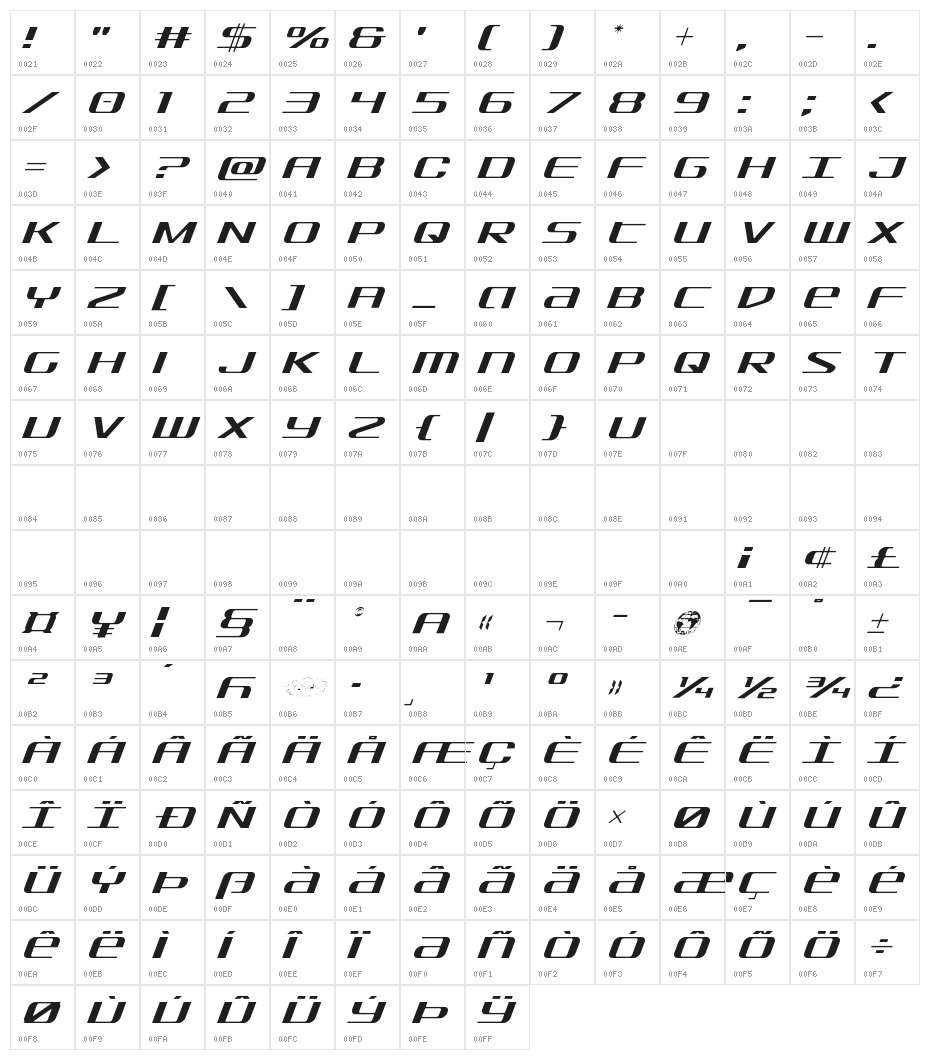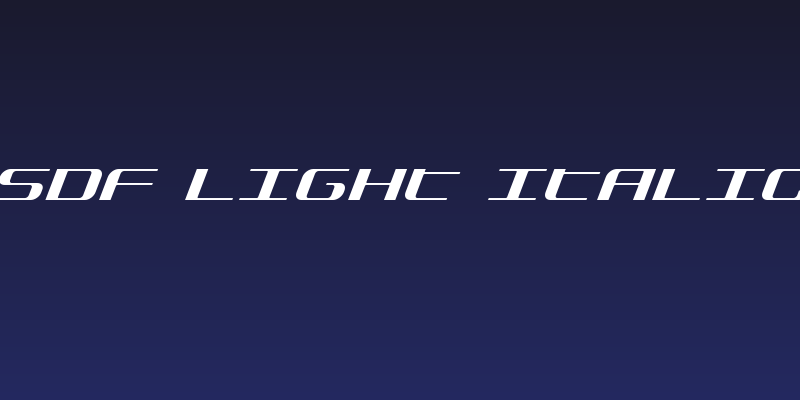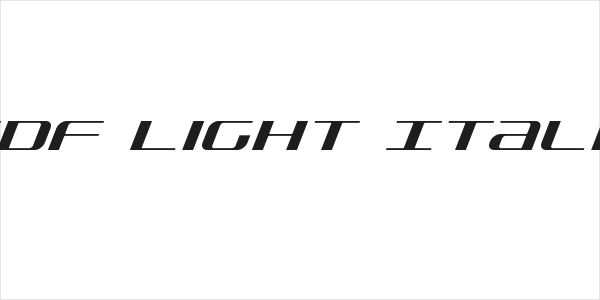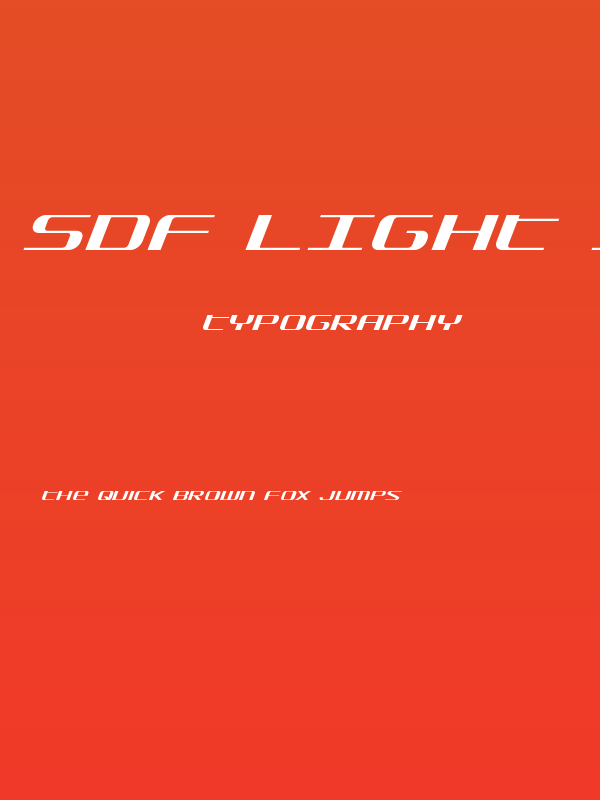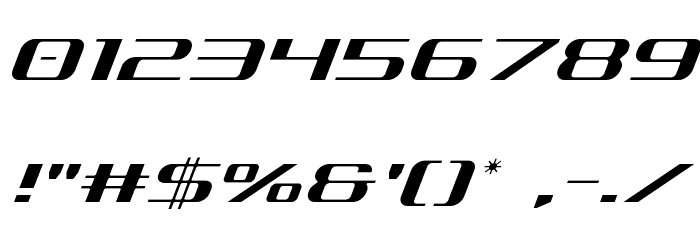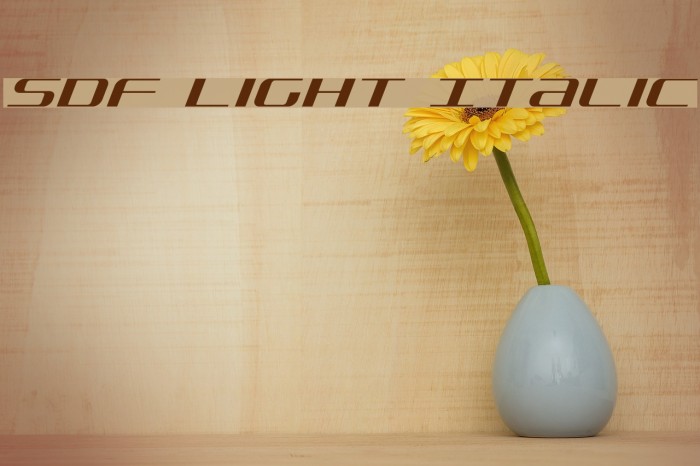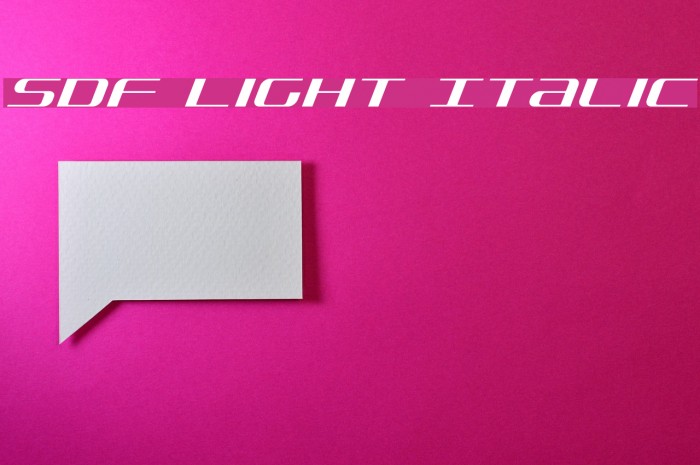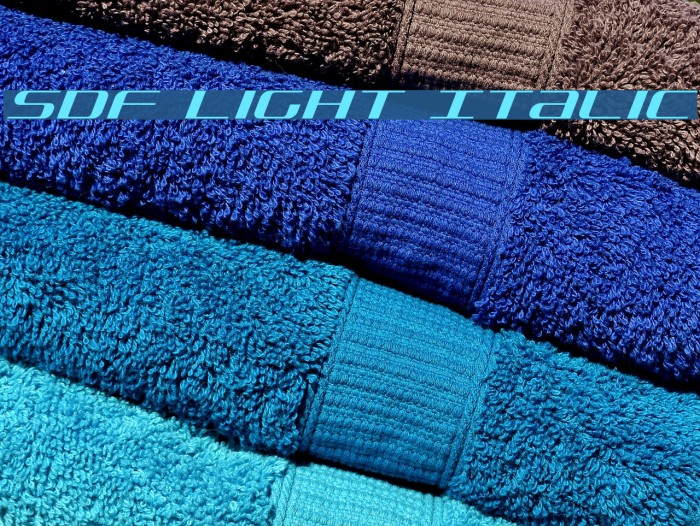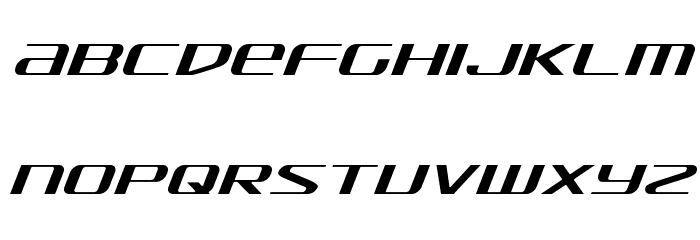
SDF Light Italic Font
SDF Light Italic Description
This font exhibits a sleek and modern design with a distinct italic slant, giving it a dynamic and forward-moving appearance. The characters are crafted with precision, featuring sharp edges and clean lines that enhance its futuristic style. The font maintains a consistent stroke width, contributing to its uniform and cohesive look. The spacing between characters is slightly tight, which adds to its compact and efficient feel. This typeface is well-suited for projects that require a contemporary and energetic touch, such as technology branding, sports-related materials, or innovative product designs.
| Use Case | Logos, Headlines |
| Proposed Projects | Ideal for technology branding, sports materials, and innovative product designs. |